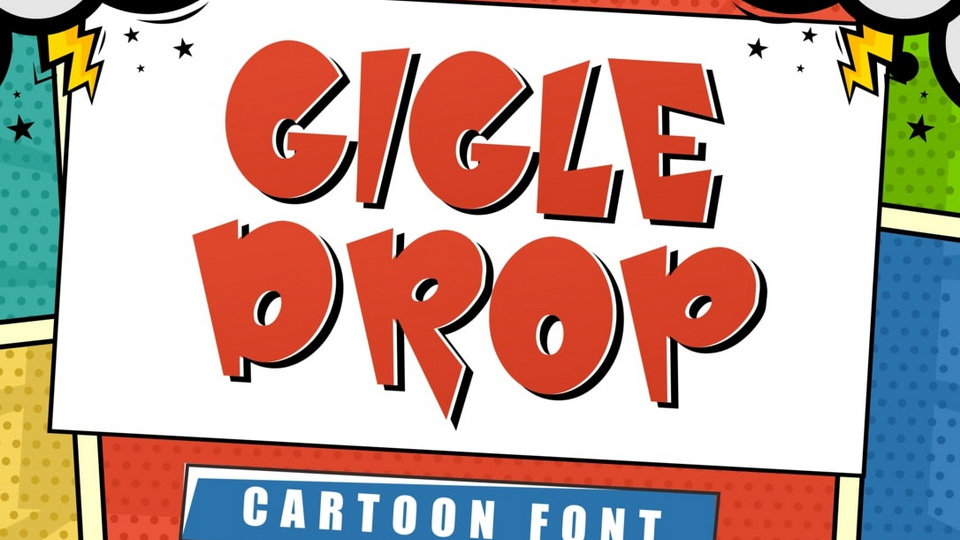
Download Gigle Drop font, a retro display typeface that radiates joy, individuality, and a sense of awe! This funky display font embraces the retro vibes of the 70s, playful characteristics that are ideal for eye-catching displays, titling, and even creating memorable logos or headers.